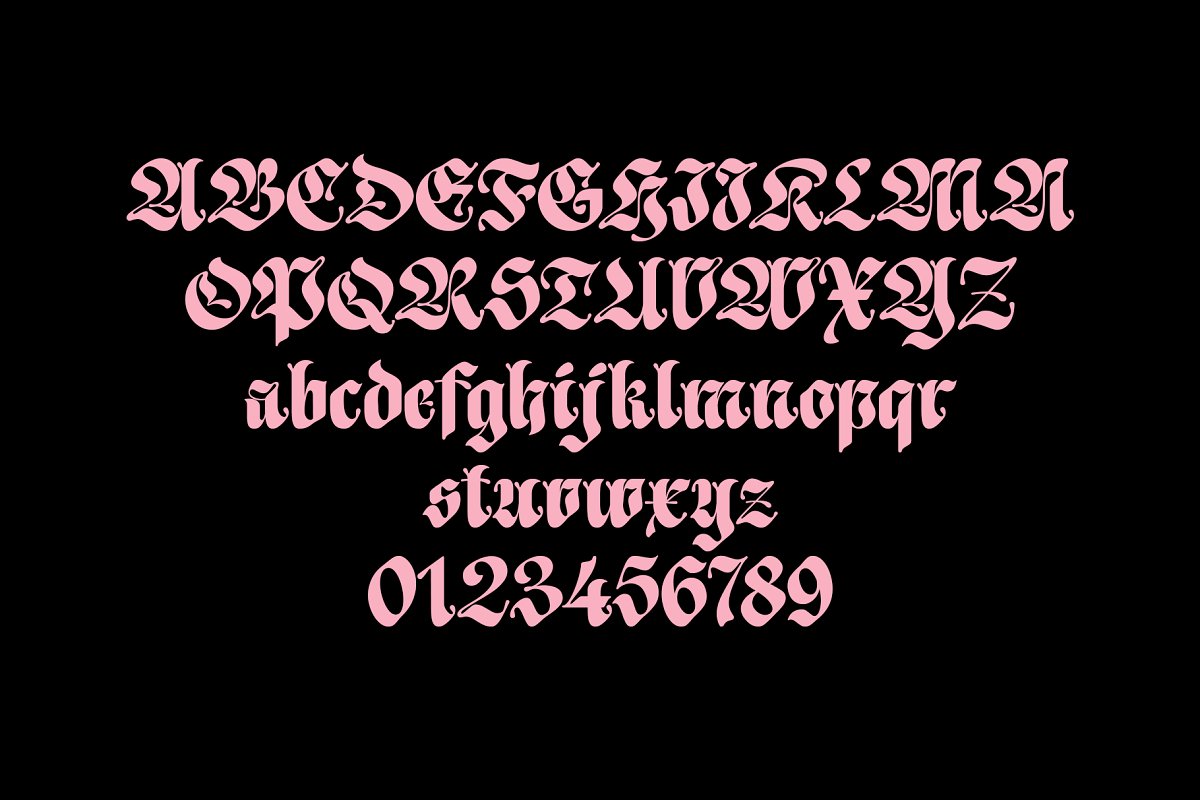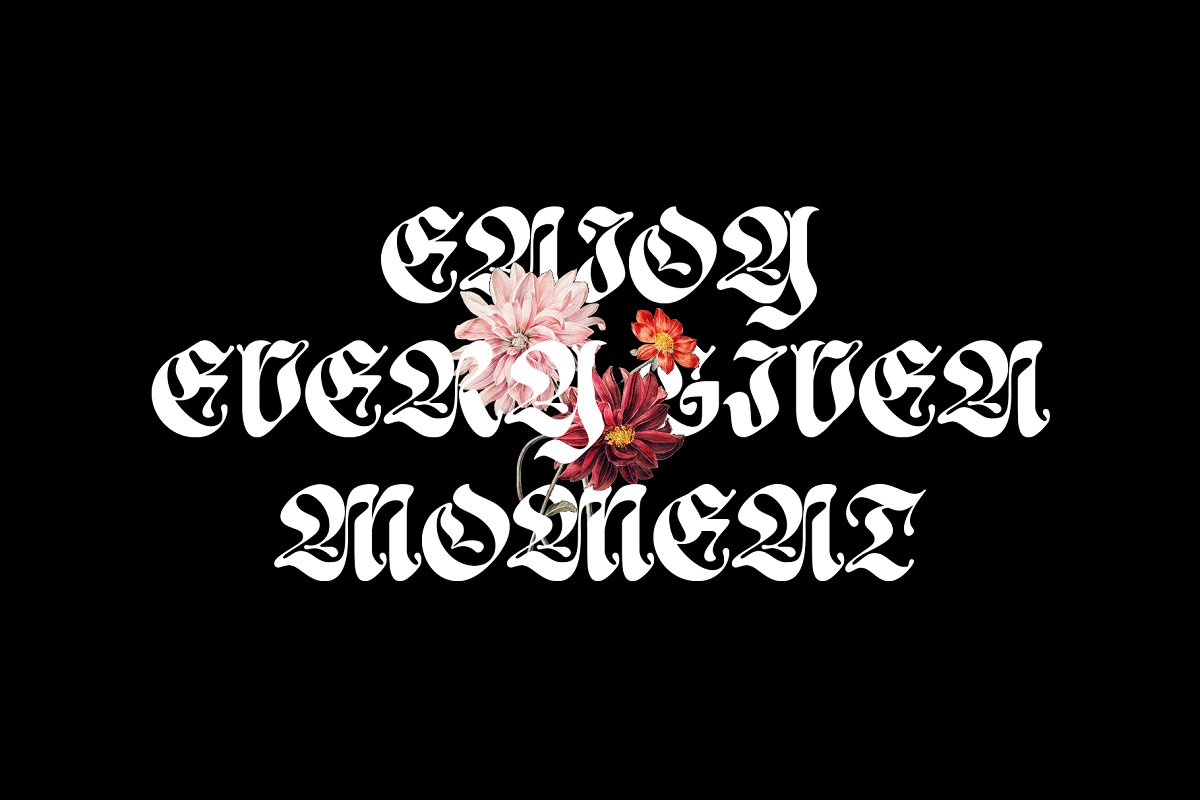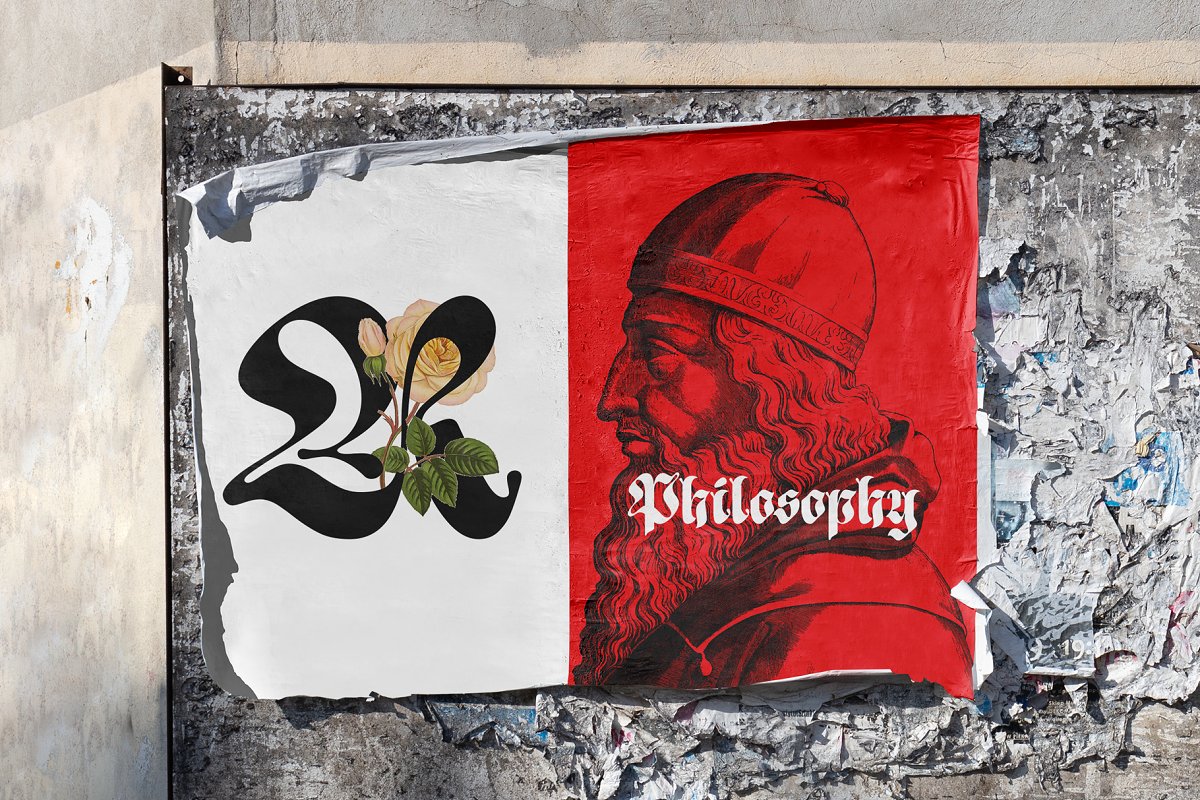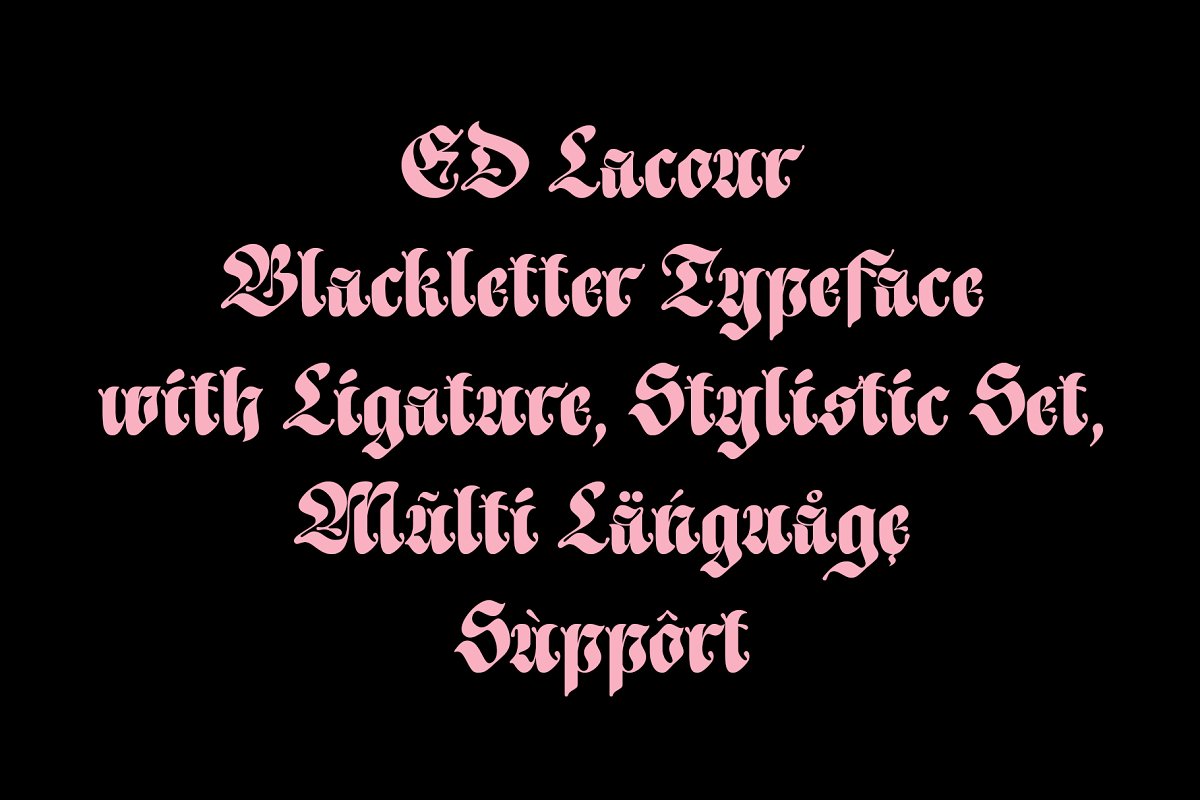
About the ED Lacour Blackletter Typeface Font
ED Lacour is a blackletter font with rounded edges that gives it a unique and modern look, This font is equipped with several opentype features such as Ligatures, Stylistic Set, and multi-language support, You can also combine this font with other types of fonts according to your needs, This font is perfect for branding, logo design, cover design, books, magazines, apparel designs, headlines, etc